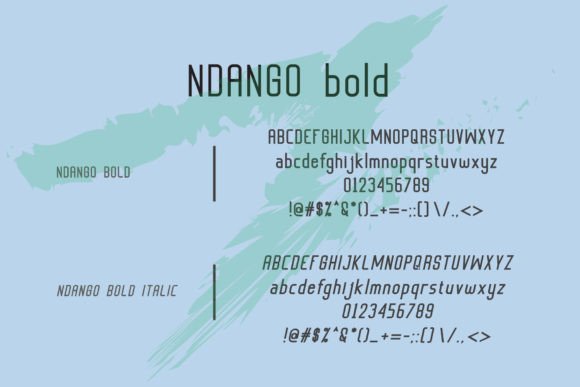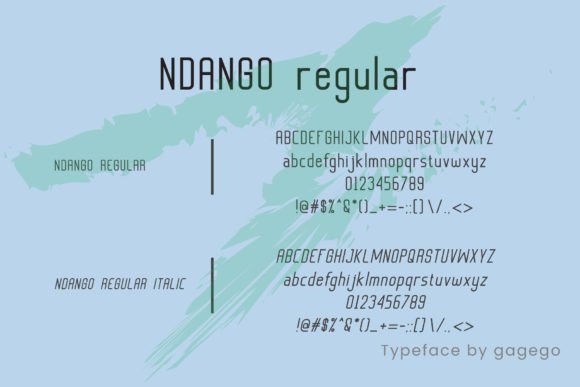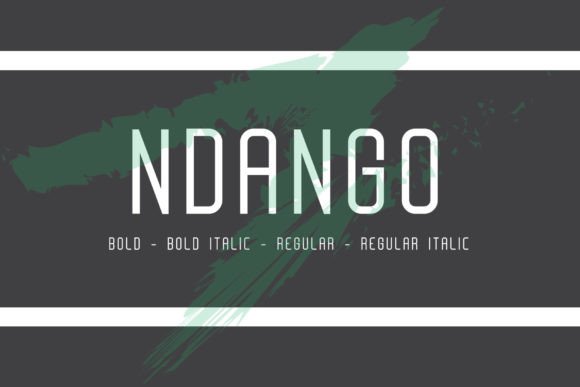
Introduction to Ndango Font Font
Fonts play a crucial role in design, and the Ndango Font font is a typeface that brings both character and versatility to any project. Whether you’re working on a branding project, a website, or a print design, the Ndango Font font offers a unique style that can elevate your work.
Ndango is a modern sans-serif font with a unique, contemporary look featuring sharp edges, bold lines, and smooth curves.
A perfect choice for creating eye-catching headlines and stand-out designs .
Key Features of Ndango Font Font
Why Choose Ndango Font Font?
The Ndango Font font is more than just a typeface – it’s a design tool that helps you communicate your message with style and clarity. Its unique character set and versatile design make it suitable for a wide range of applications, from elegant invitations to bold headlines.
With its carefully crafted letterforms and balanced proportions, the Ndango Font font ensures readability and visual appeal across all mediums.
What makes Ndango Font font special?
The Ndango Font font stands out with its unique design, exceptional readability, and versatility across various design applications.